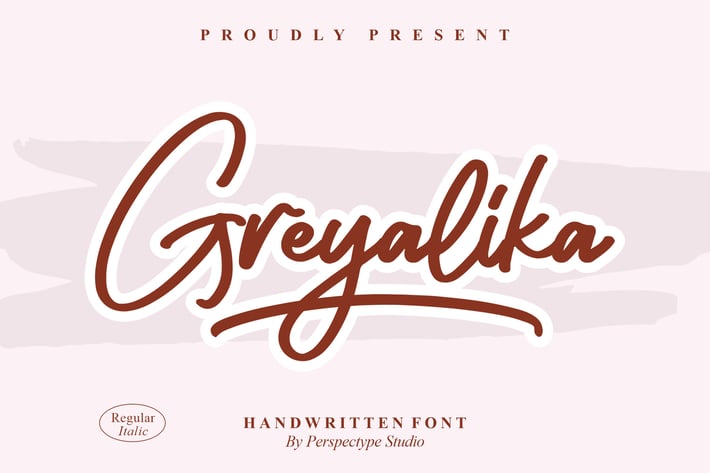
Greyalika Handwritten Font
Greyalika Handwritten Font is a bold and stylish script with clean strokes and a contemporary handwritten feel. Its casual yet confident design makes it versatile for a wide range of creative projects, adding a personal and modern touch.
+ Handwritten script style with bold curves
+ Includes Regular & Italic styles
+ Branding & logo design
+ Social media graphics
+ Greeting cards & invitations
+ Posters & promotional projects
+ Lifestyle or editorial use
Express your creativity with Greyalika – a handwritten font that combines boldness and style with effortless charm.